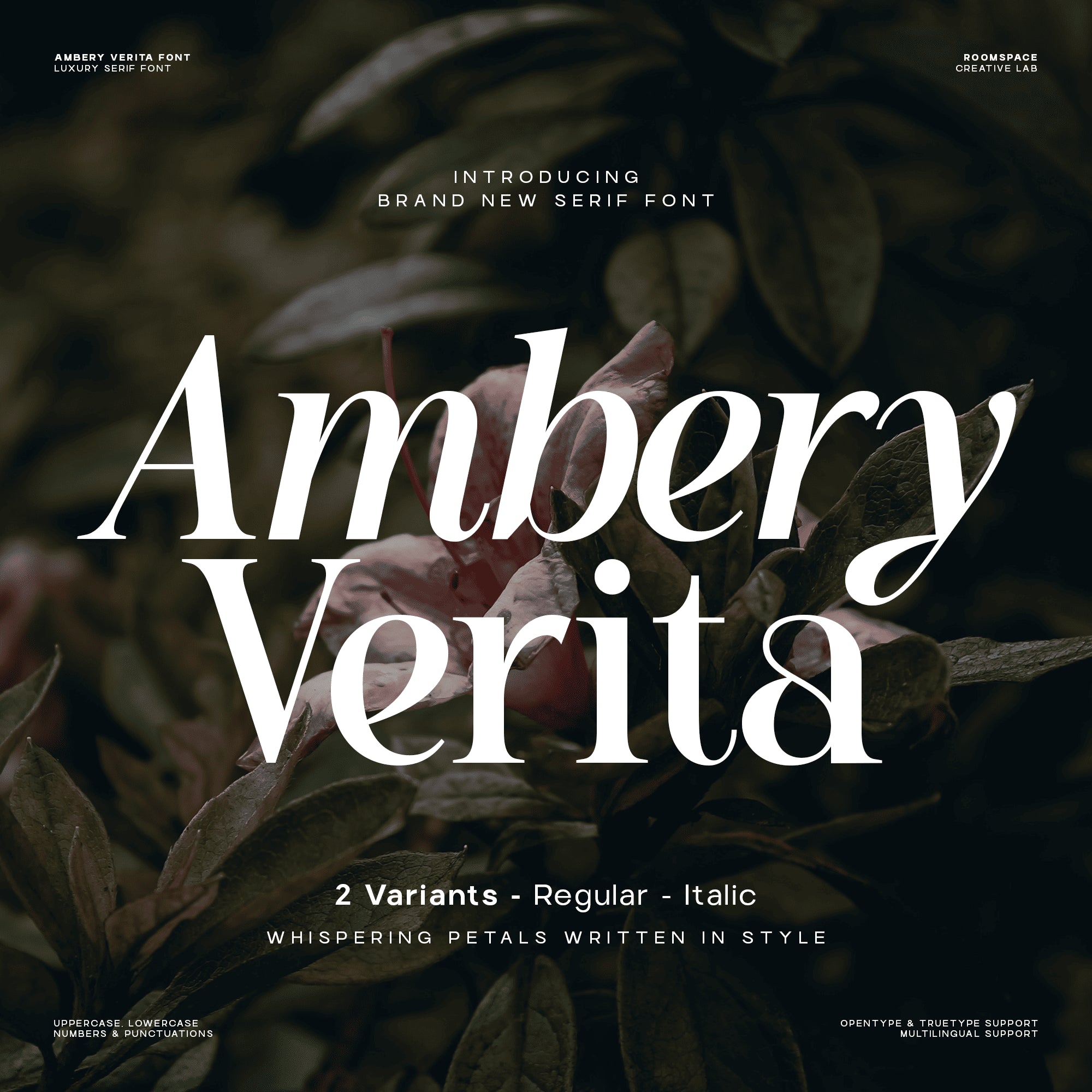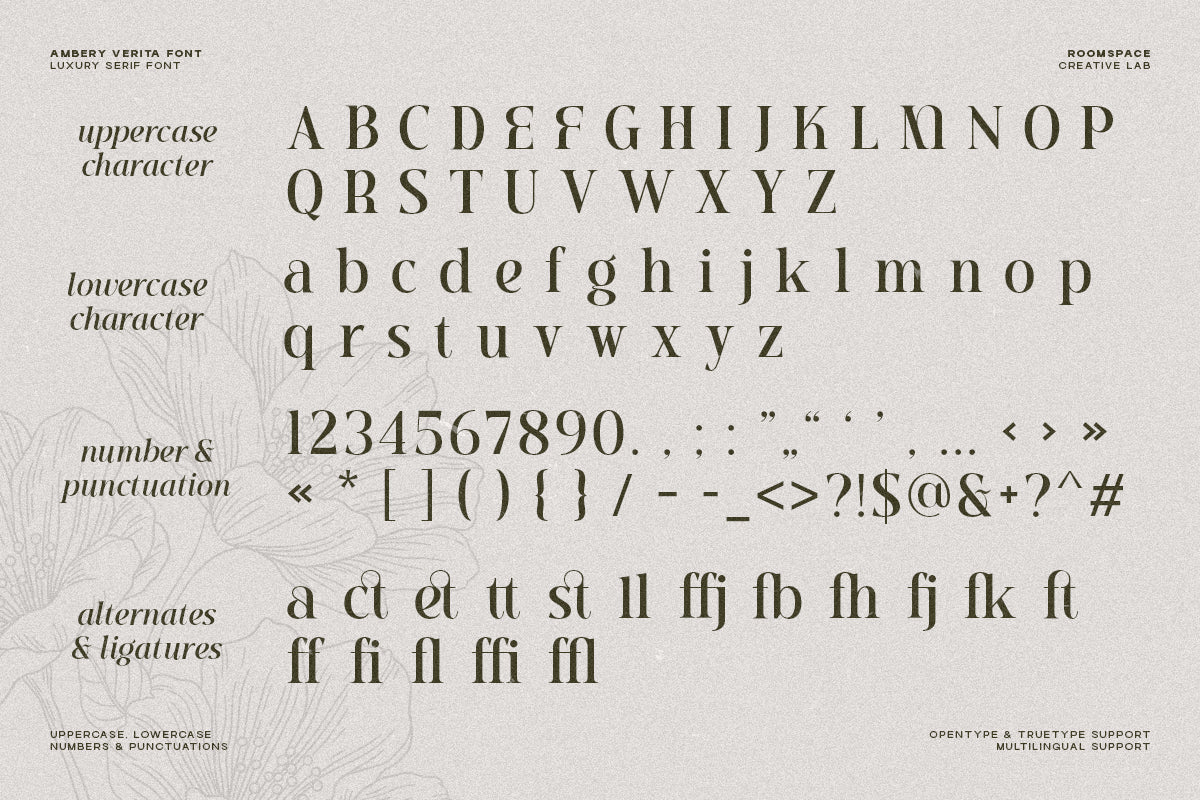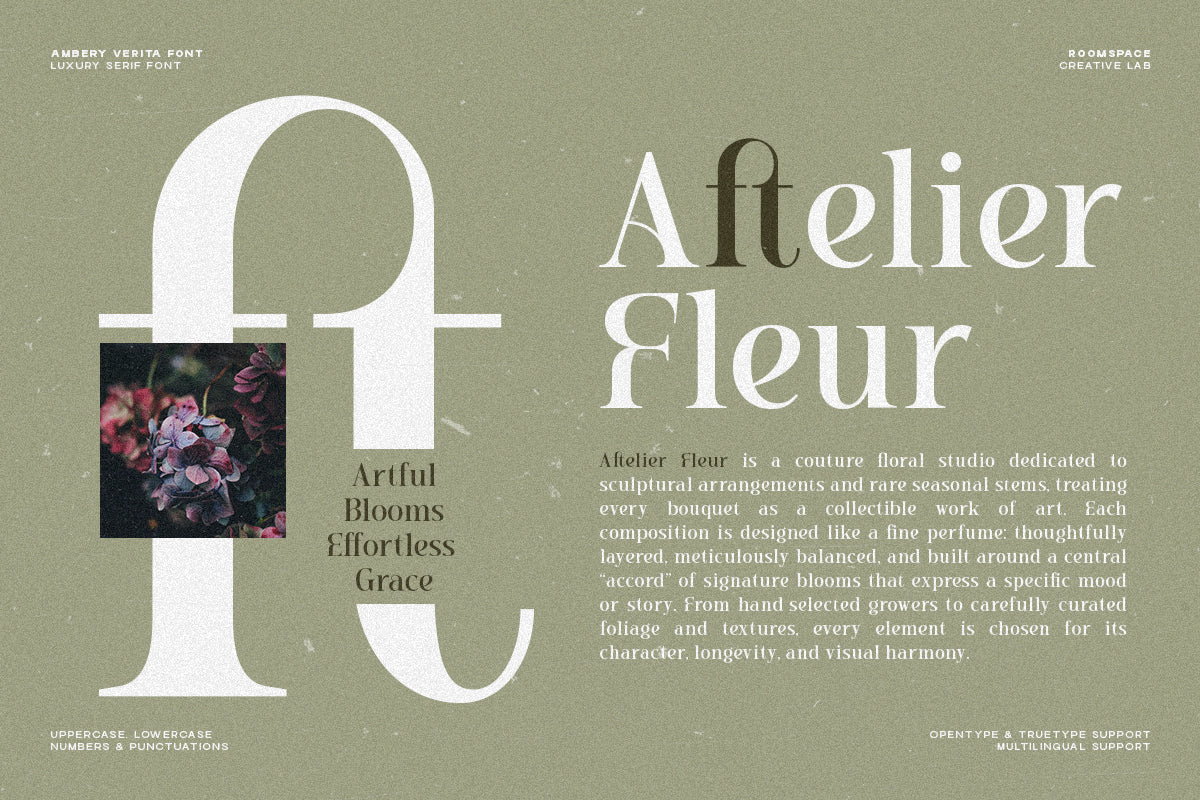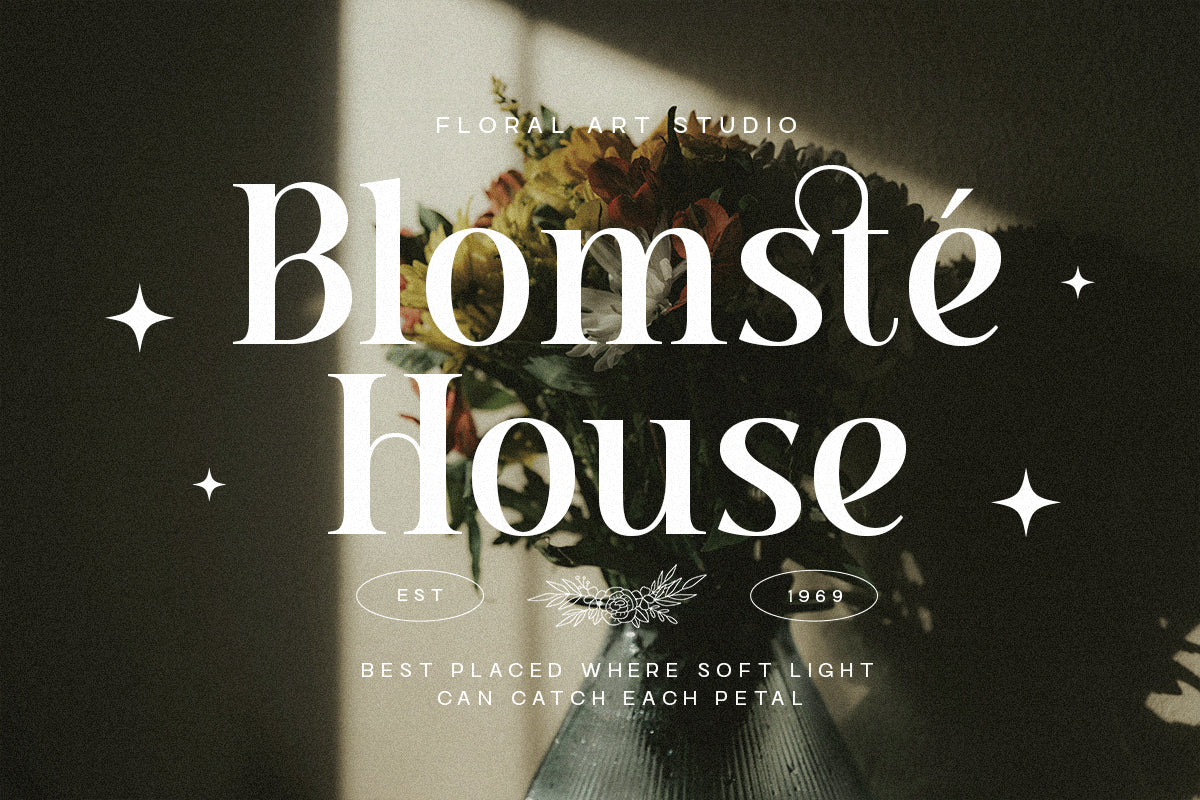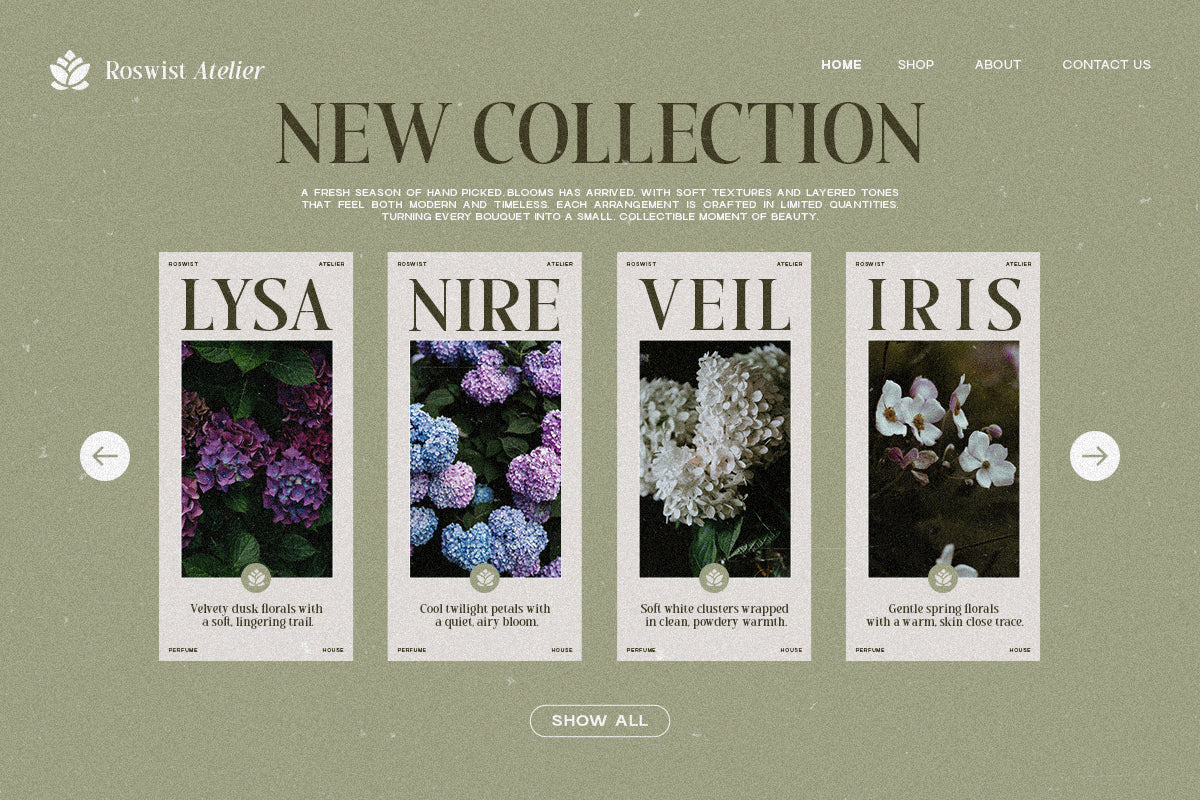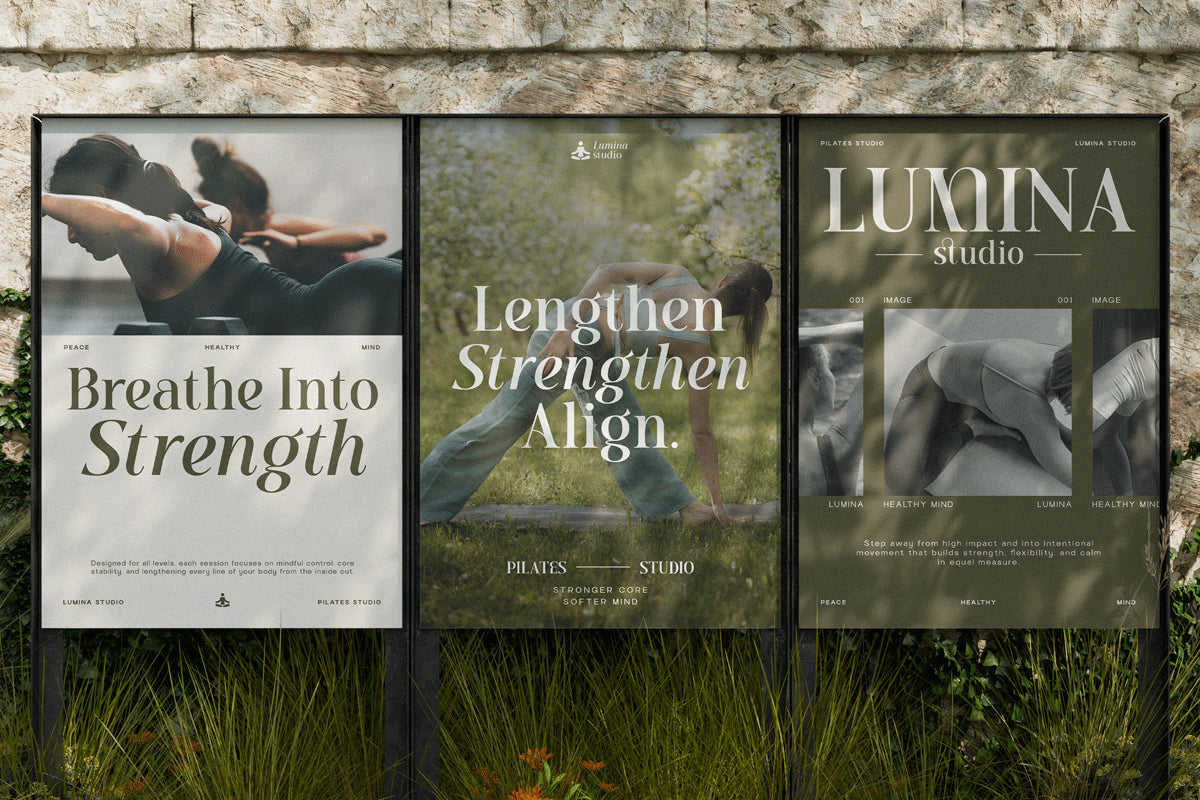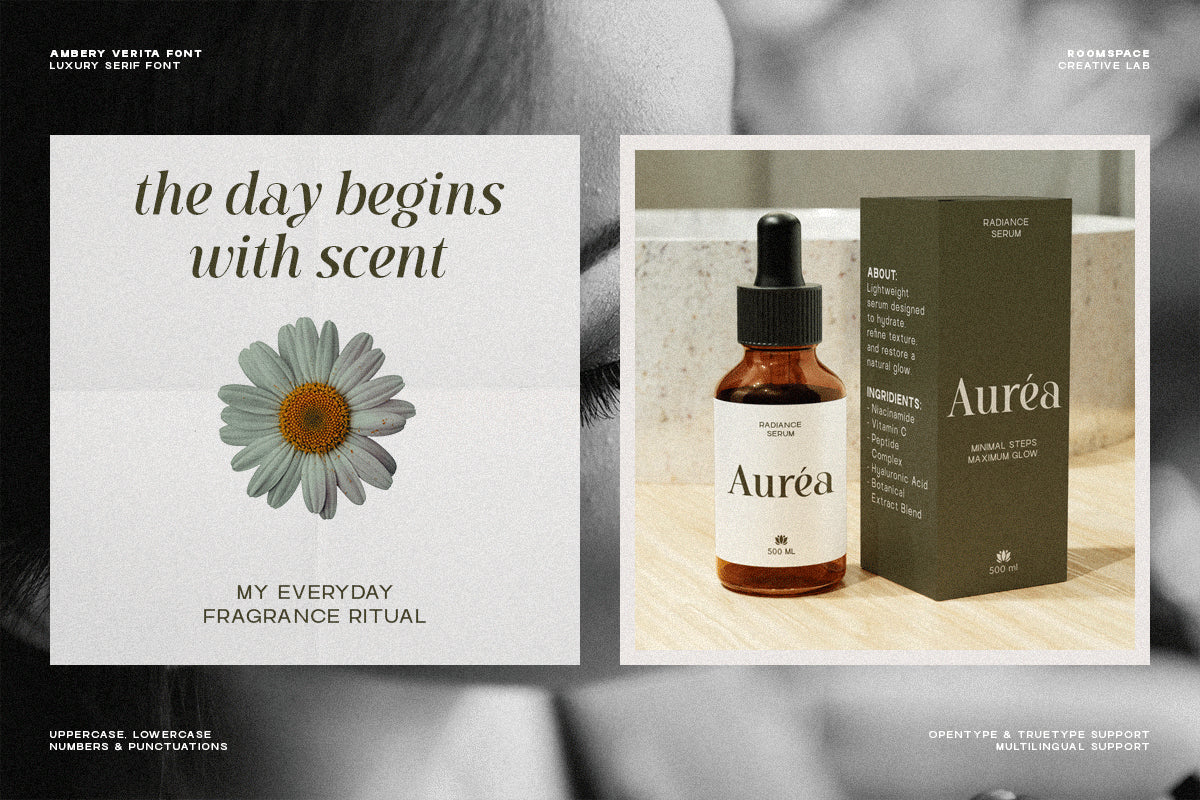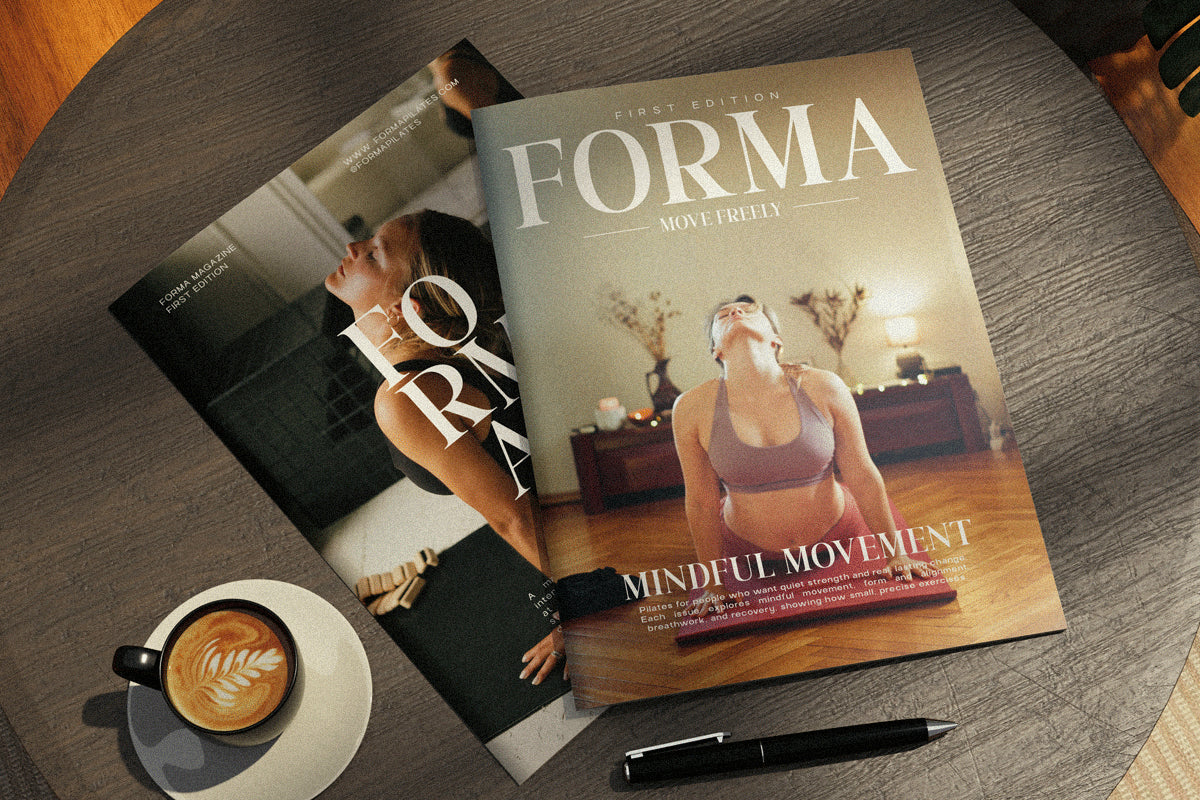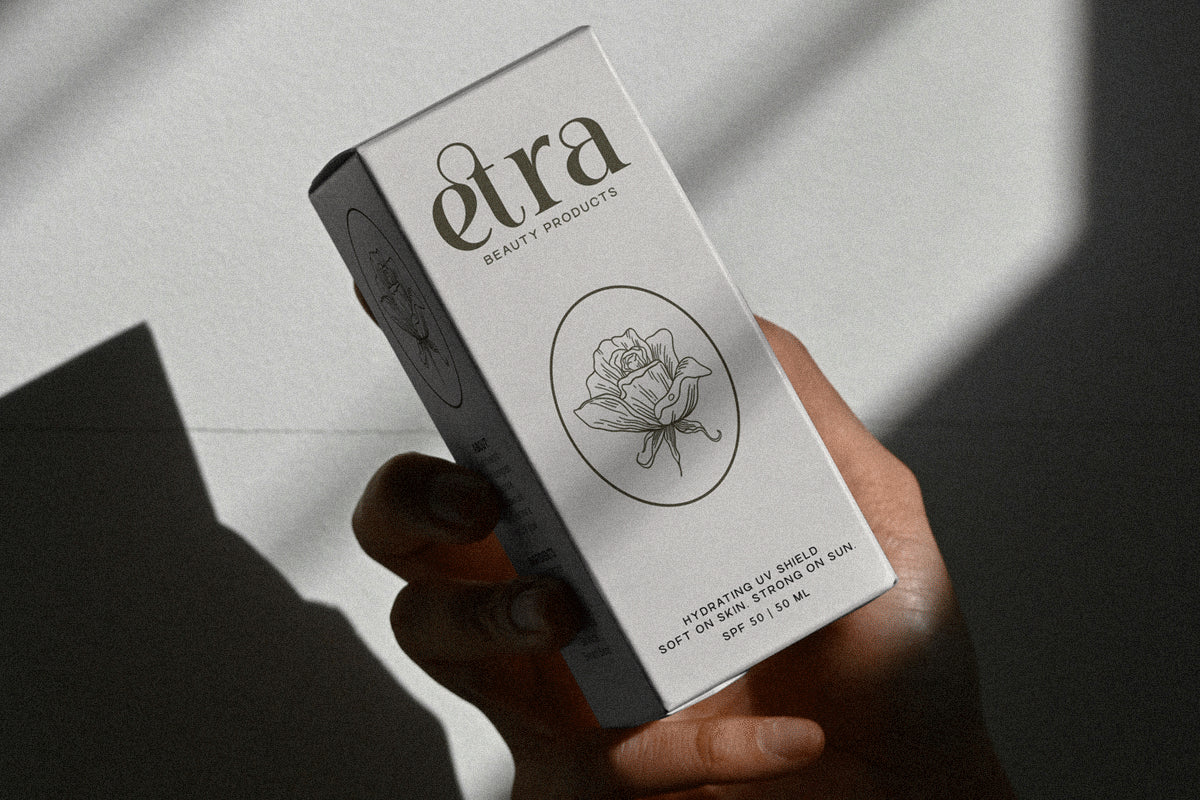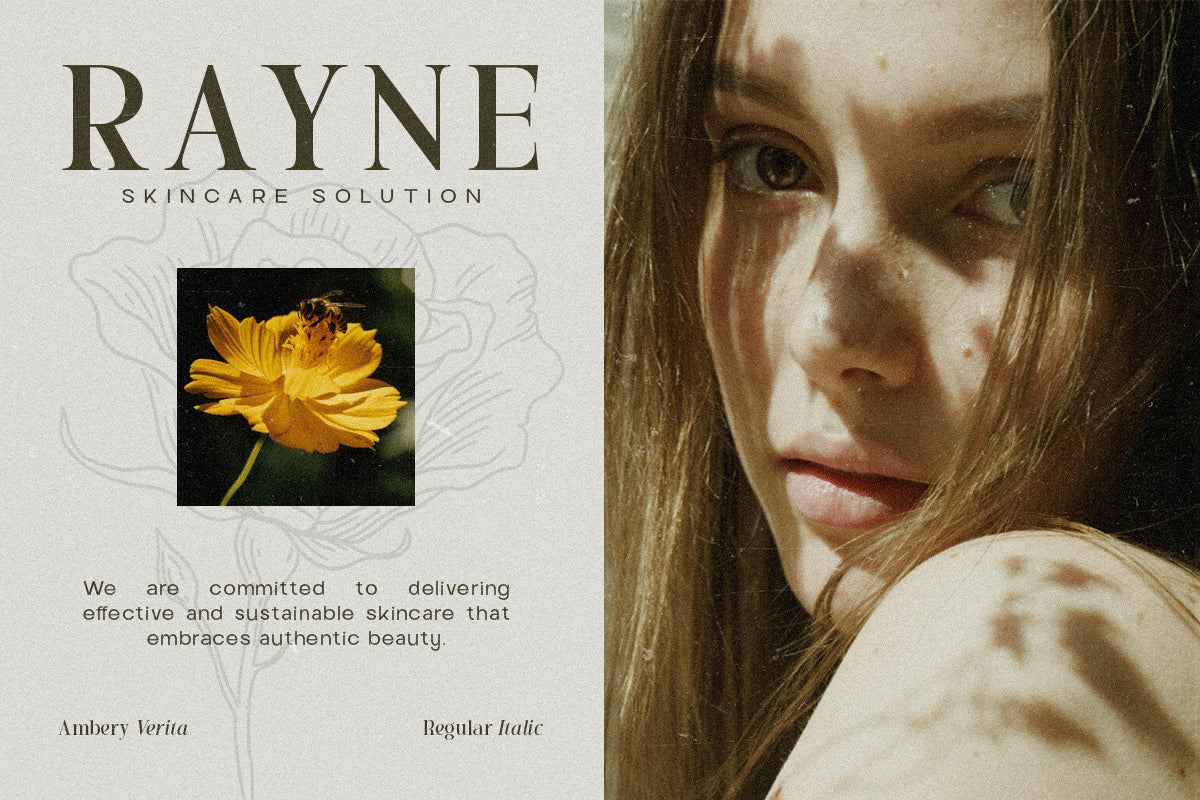
Ambery Verita – Elegant Modern Serif Typeface
Ambery Verita is an elegant serif typeface designed with modern contrast and expressive curves. Its refined proportions make it perfect for luxury branding, wedding aesthetics, magazines, and artistic displays. Featuring 2 styles (Regular & Italic), Ambery Verita brings a sophisticated, romantic energy to any visual composition ideal for designers who need a premium serif that feels timeless yet contemporary.
• High-contrast modern serif
• Elegant curves + editorial styling
Perfect For : Luxury branding, wedding stationery, magazine layouts, feminine designs, packaging, quotes, social media, logos.
Ambery Verita is an elegant modern serif typeface featuring high-contrast design and expressive curves, available in two styles: Regular and Italic. It includes uppercase and lowercase letters, multilingual support (OTF, TTF, WOFF), and is suitable for a variety of design applications.